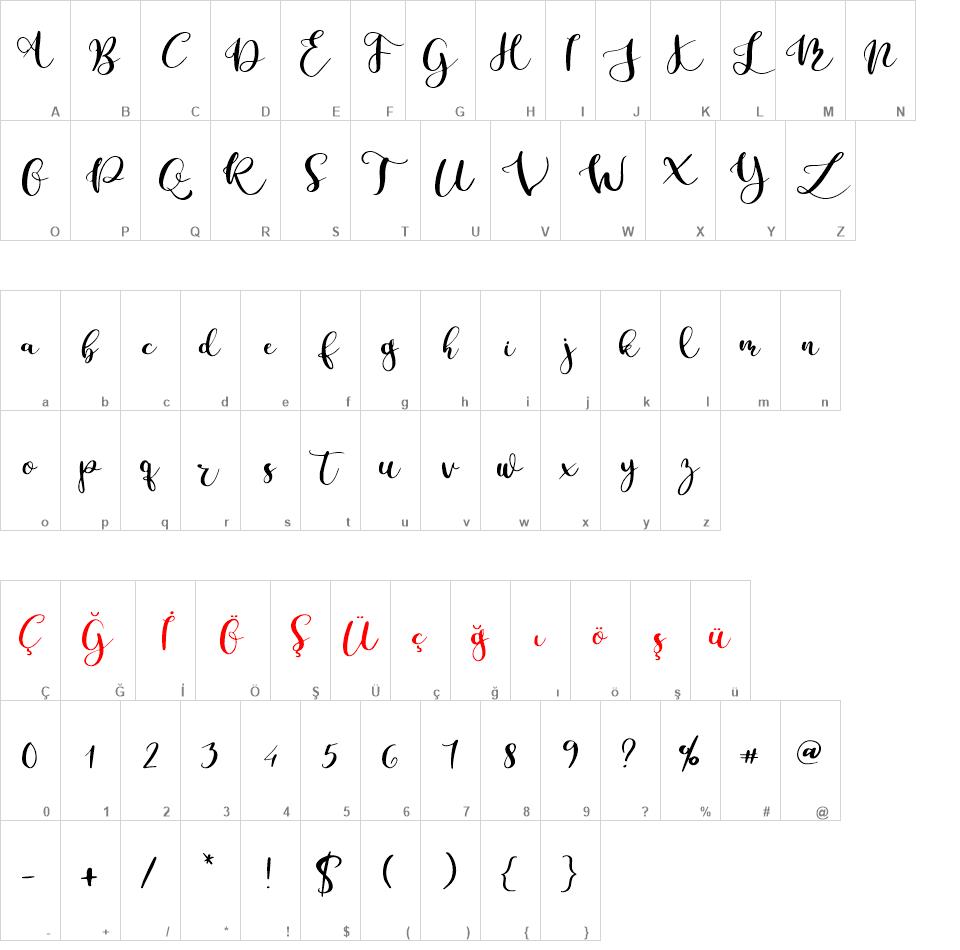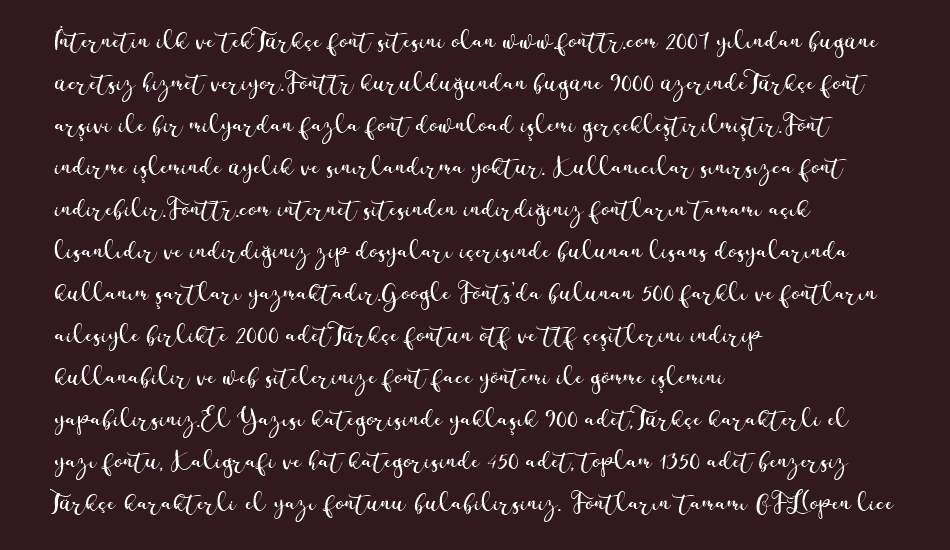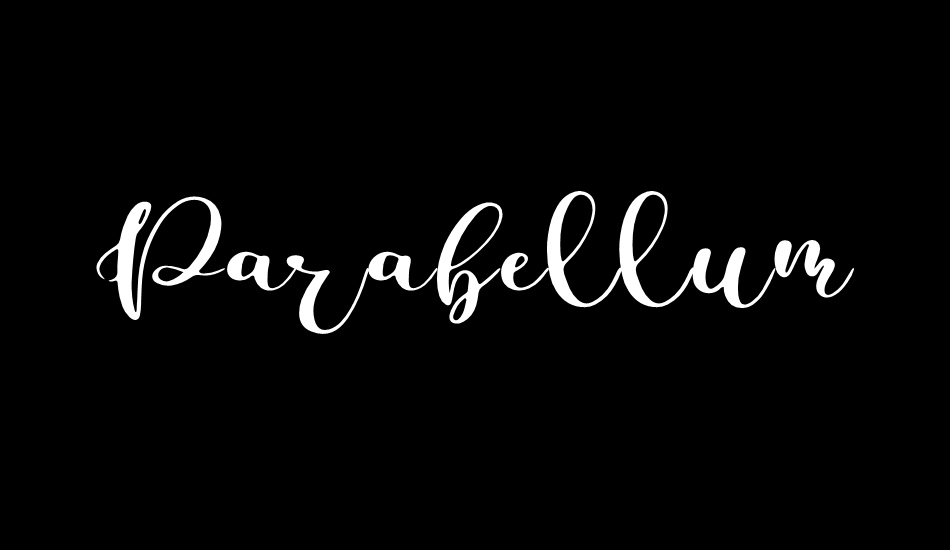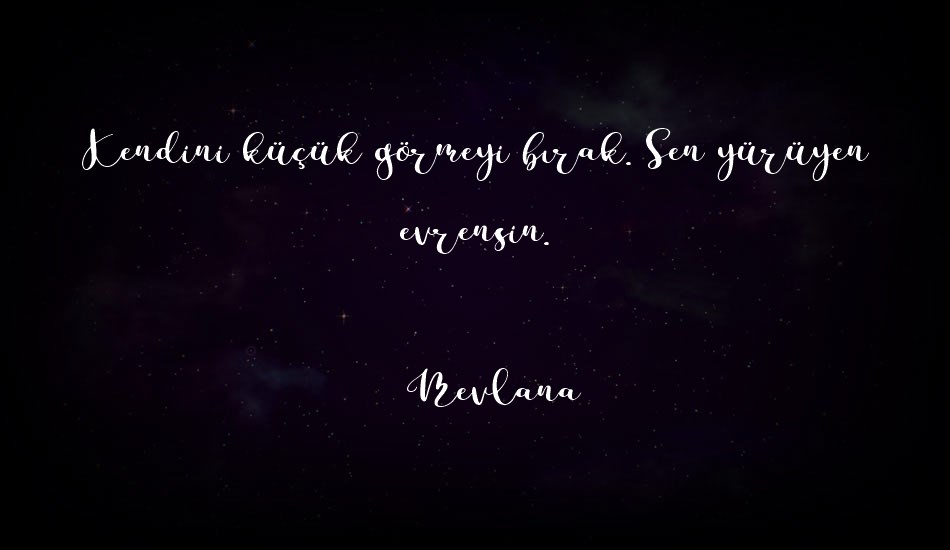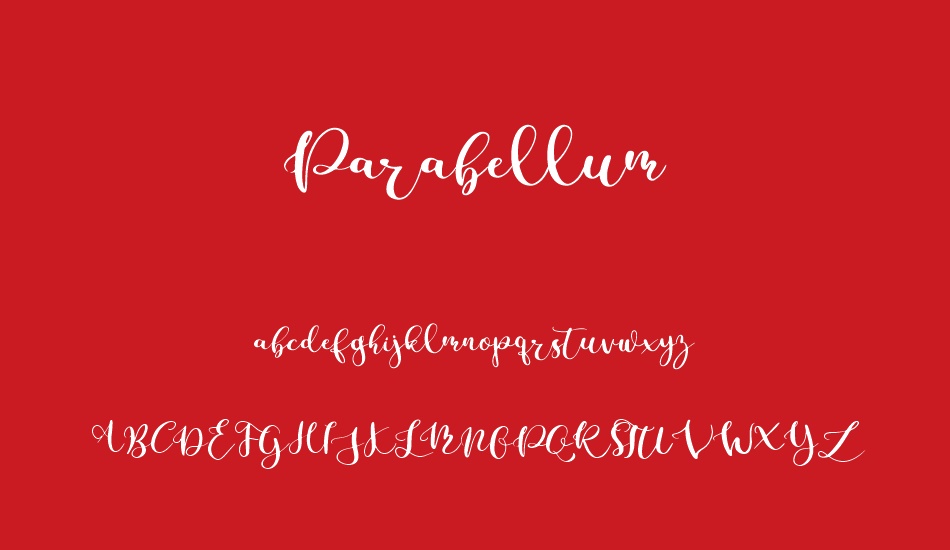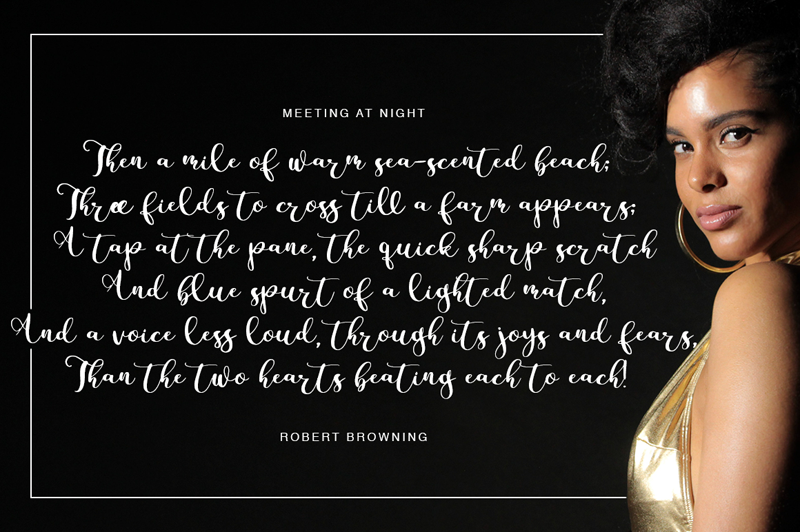
Parabellum font
Parabellum
Parabellum - a new fresh handmade calligraphy font.
Very suitable for greeting cards, branding materials, business cards, quotes, posters, and more!This font are perfect for wedding postcard. Or you can create perfect and unique design of your logo, blog, stationery, marketing, magazines and more :)
Features :
UpperCase & Lowercase
Numerals & Punctuations
Multilingualcharacters(AÀÁÂÃÄÅCÇDÐEÈÉÊËIÌÍÎÏNÑOØÒÓÔÕÖUÙÜÚÛWYÝŸŸ ÆŒßÞàáâãäåæçèéêëìíîïðñòóôõöøùúûüýÿ)
LIGATURES